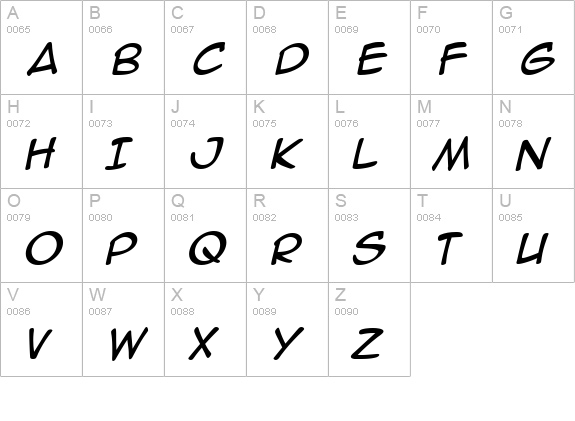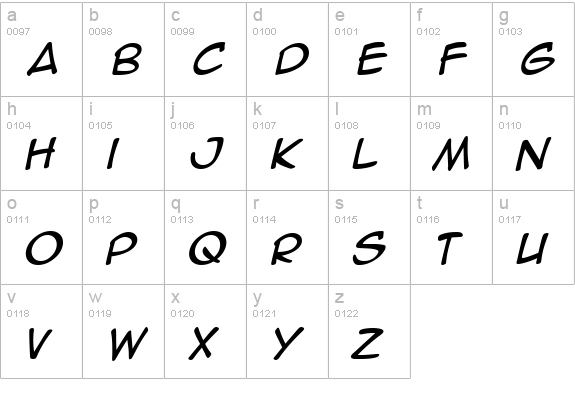
Anime Ace 2.0 BB Italic Font Details
Anime Ace 2.0 BB Italic is a distinctive, italic variant in the Anime typeface family \xE2\x80\x94 well suited to design and typography projects.
Anime Ace 2.0 BB Italic font is a dynamic and eye-catching typeface that is perfect for adding a touch of excitement to your designs. With its bold and italic style, this font exudes a sense of energy and playfulness that is sure to make your text stand out. Whether you're creating posters, logos, or social media graphics, Anime Ace 2.0 BB Italic font is the perfect choice for adding a unique and stylish flair to your projects. Best of all, Anime Ace 2.0 BB Italic font is available for free download at FontsMarket.com. This means that you can easily access and use this fantastic font in your designs without having to worry about any additional costs. So why wait? Download Anime Ace 2.0 BB Italic font today and take your designs to the next level with this exciting and versatile typeface.